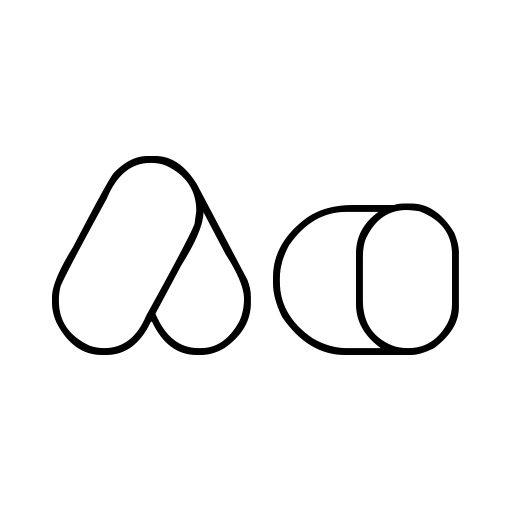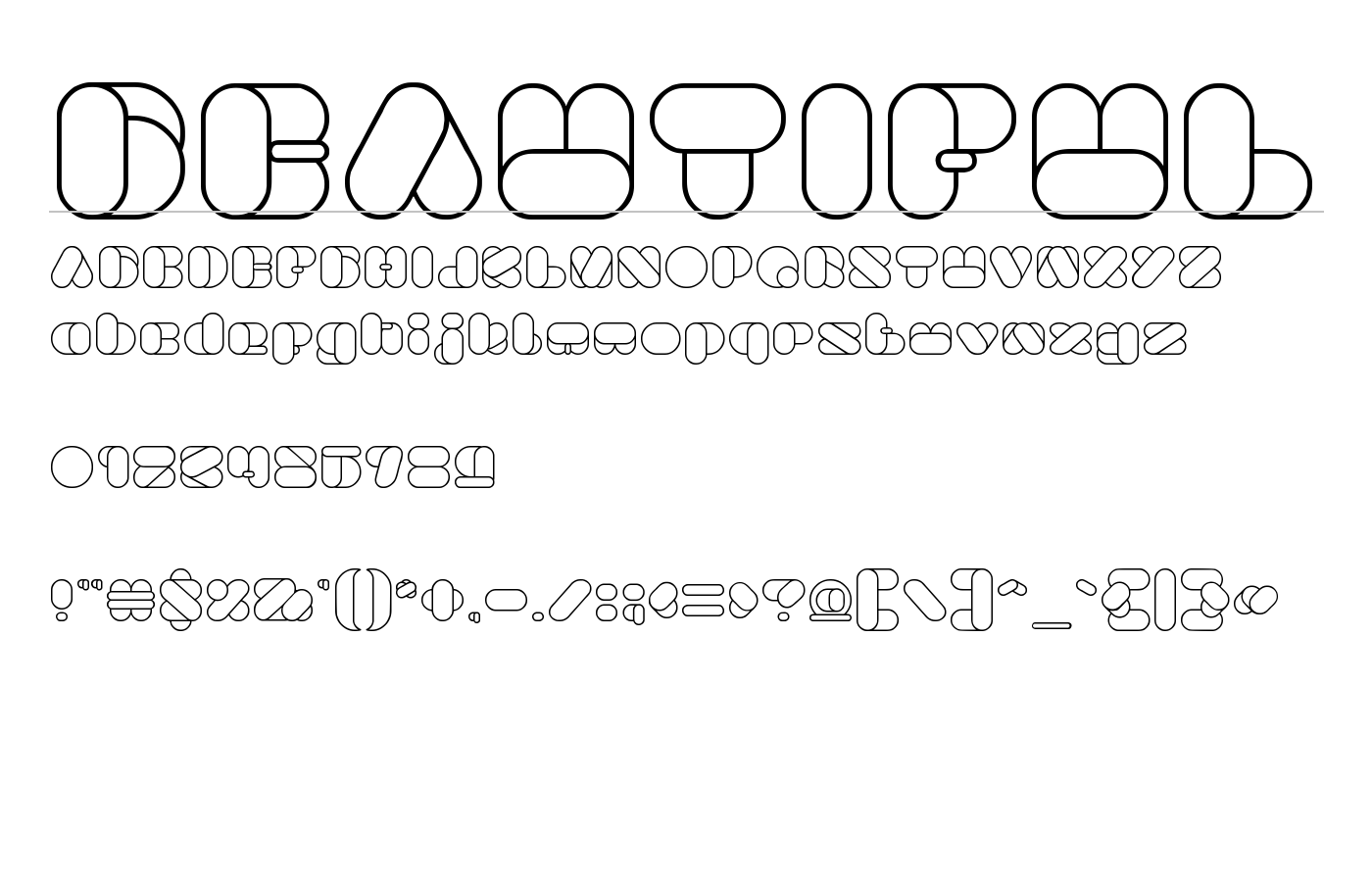
Beautiful Font is a playful and modern sans serif typeface characterized by its rounded, geometric shapes and open, airy outlines. Its light stroke weight and unique letterforms with soft curves and intersecting lines create a friendly and approachable style, ideal for eye-catching headlines, creative branding, and youthful, contemporary design projects. This font works well where a fresh, artistic vibe is desired, making it great for logos, posters, and trendy editorial layouts.